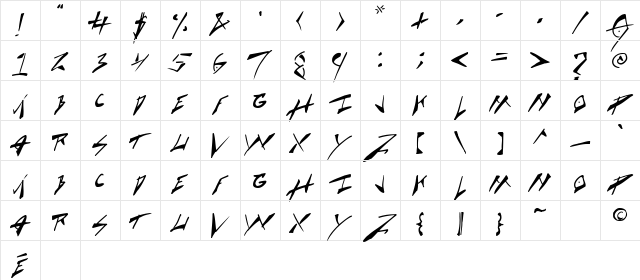
Cock Boat Regular Free Font
Cock Boat Regular
Design Context for Cock Boat
Cock Boat is a composed and adaptable typeface that performs quietly and consistently across a wide range of design contexts.